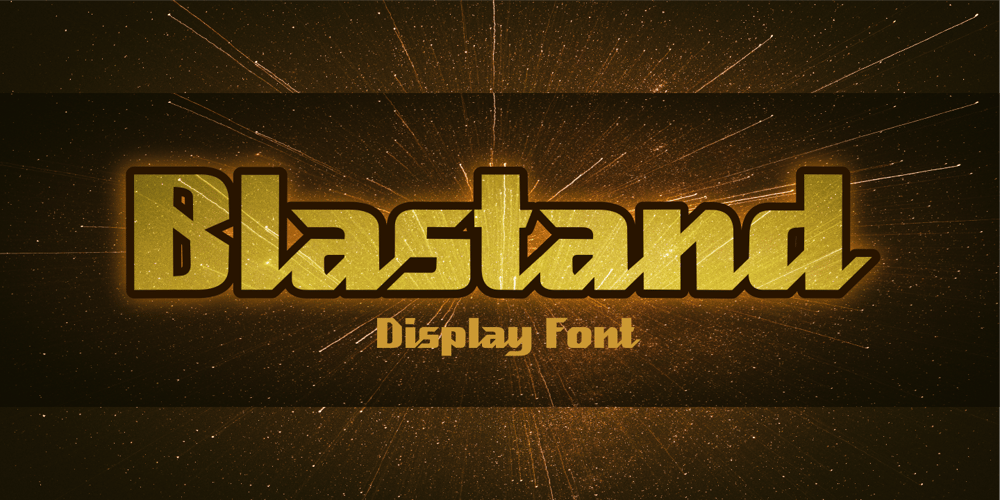
Blastand Font Family was designed by Ahmad Zulfikar Ali and published by ZetDesign. Blastand contains 2 styles and family package options. blastand is a display font created by combining sharp edges and curves for a unique shape. This font also adopts a handwritten shape at the end of the letter to present a bold writing yet still creates a classy and friendly impression.This font is also created in italic style and has open types such as ligature, stylistic alternate, etc. to provide options for designers to create awesome work.